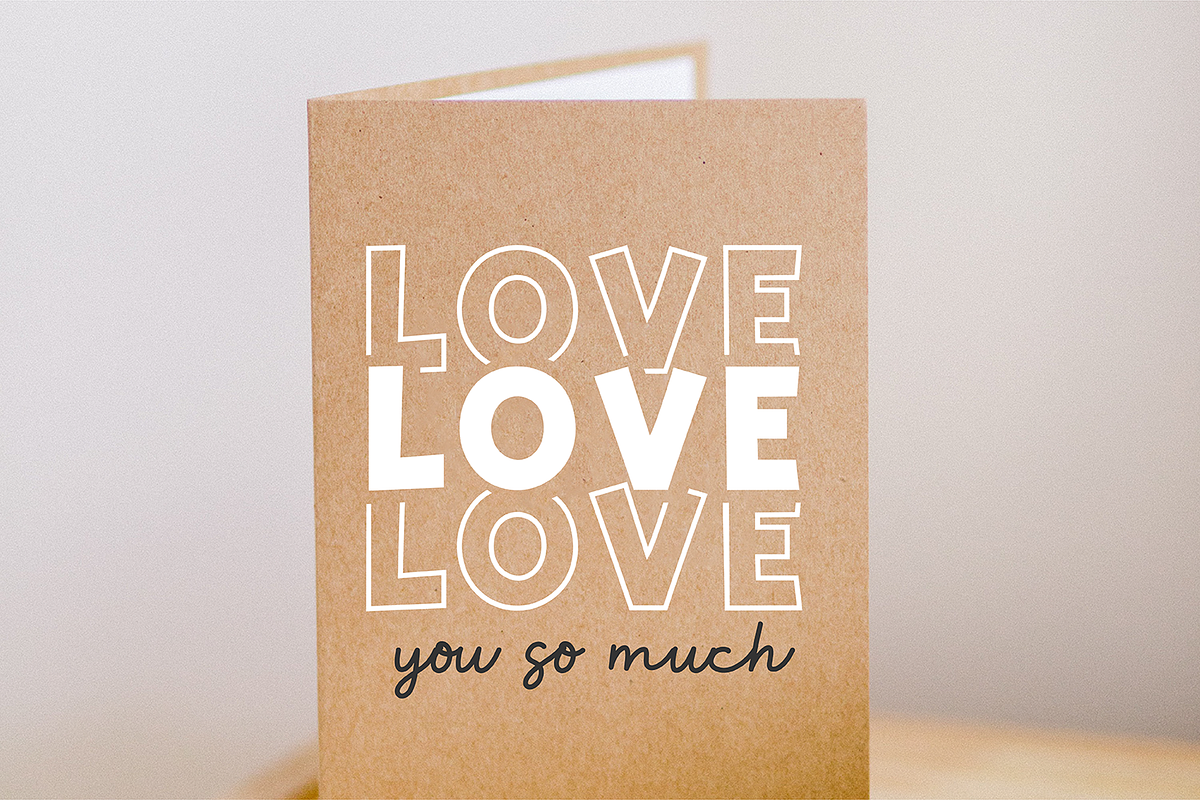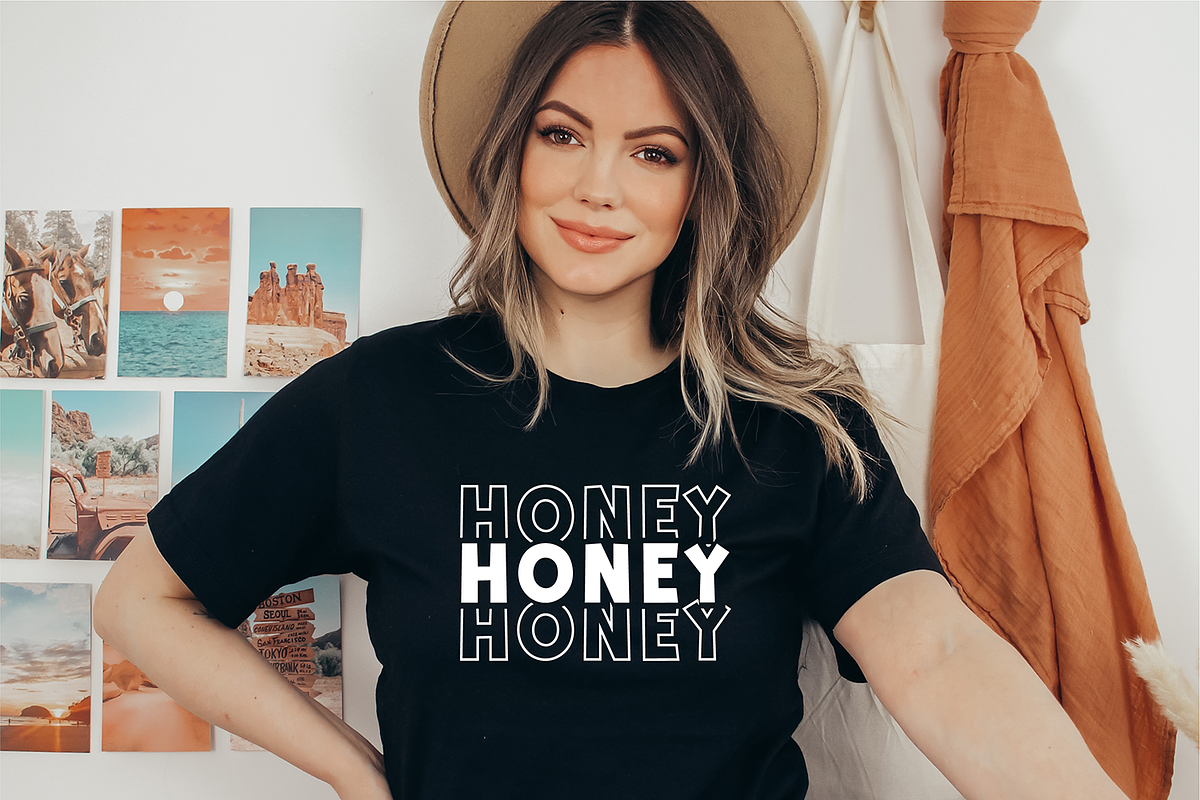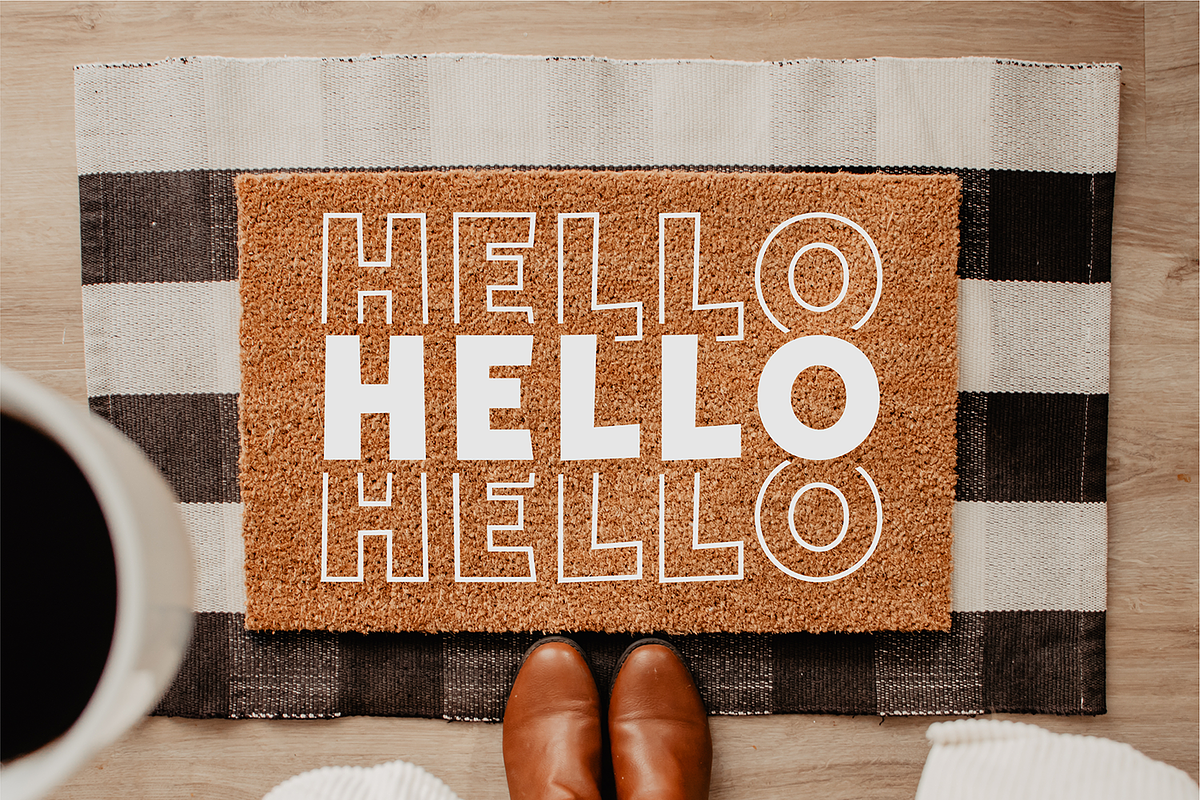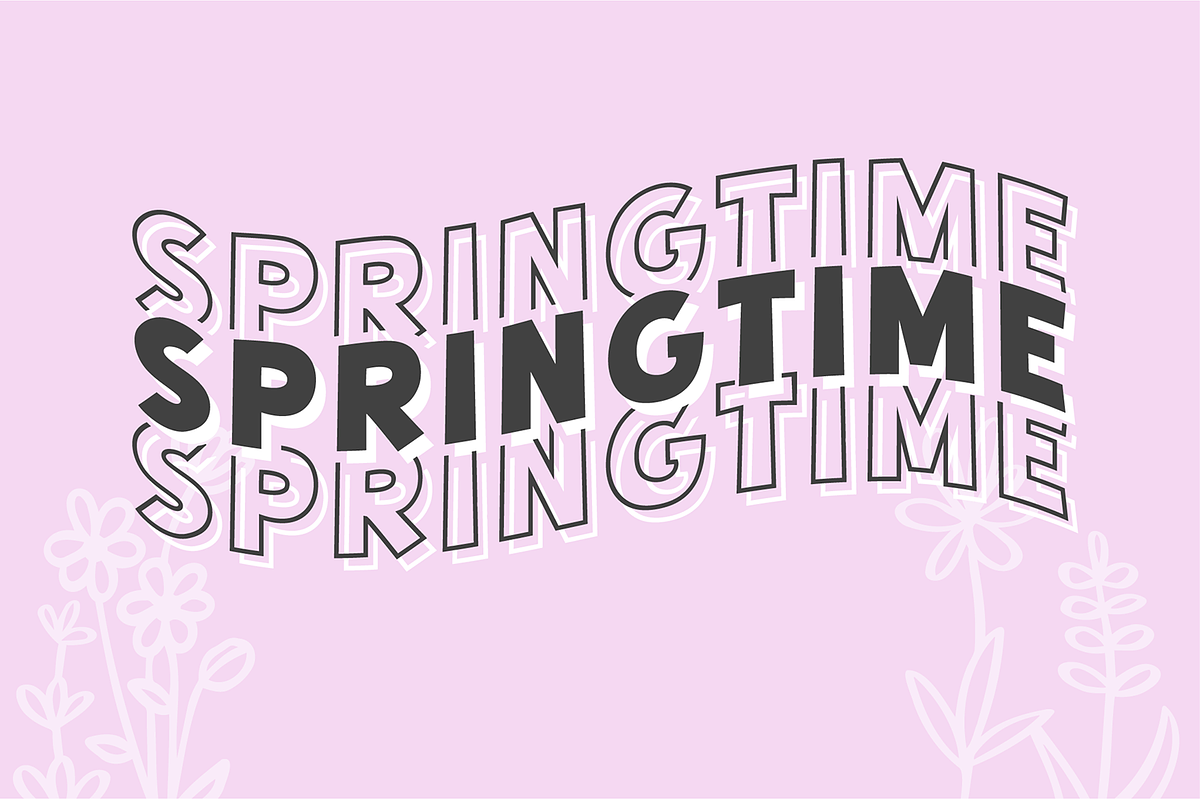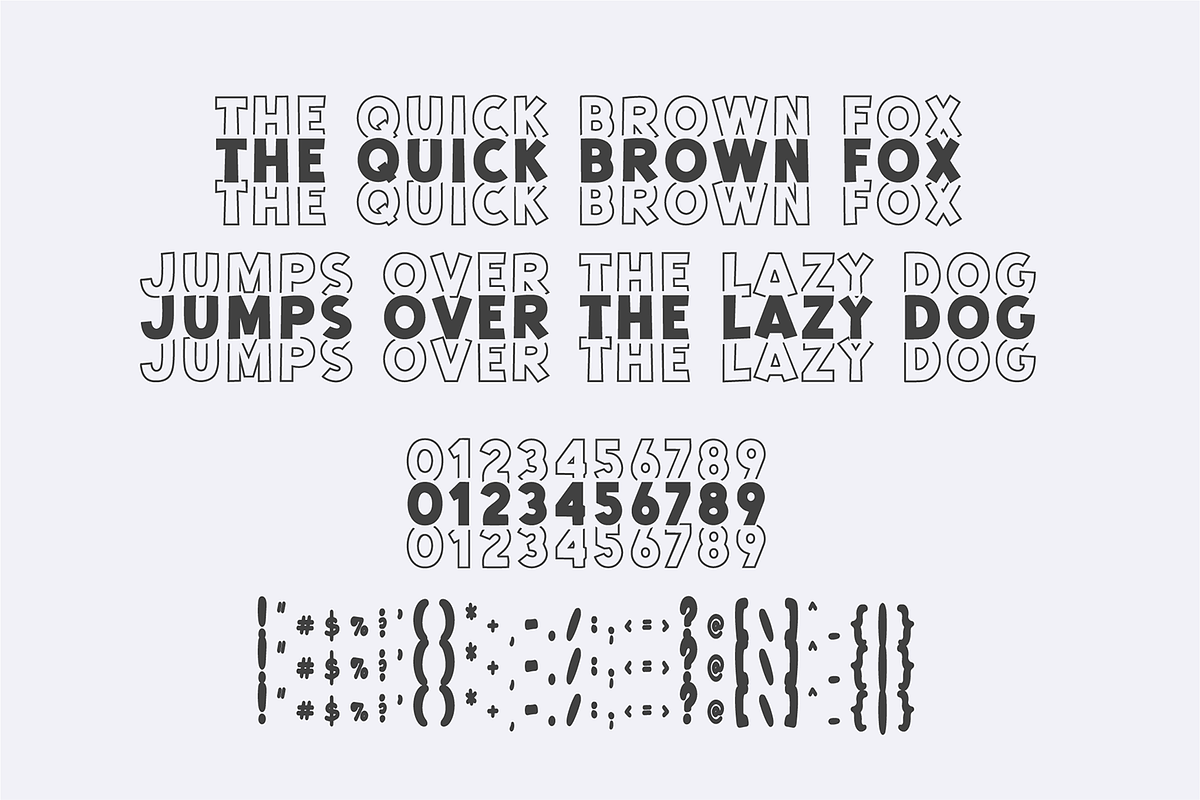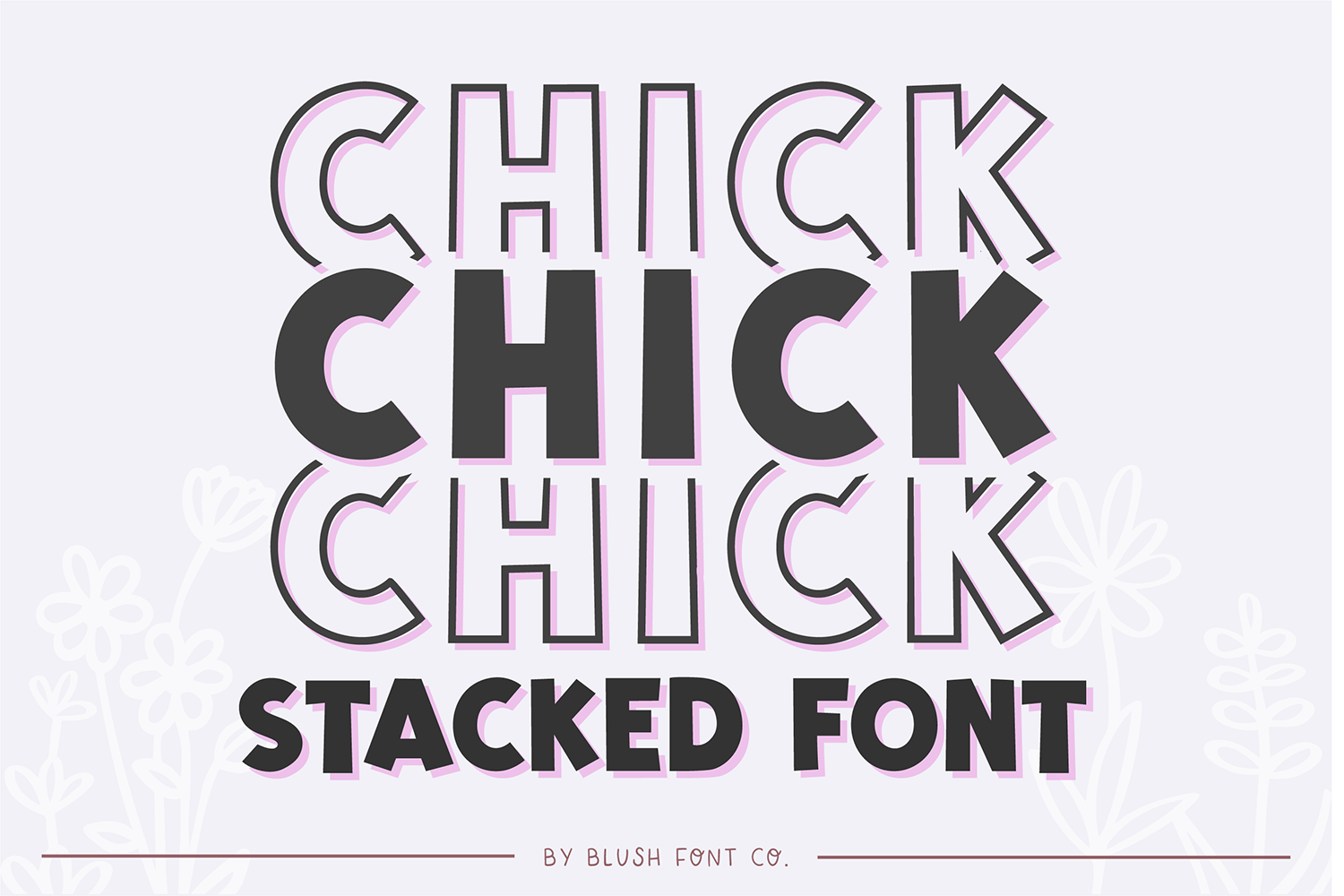
CHICK STACKED Trendy Block Font
"Chick Stacked" a trendy block display font with a stacked effect.
This font is a trendy display font that is perfect for social media or crafty projects. Use if for branding, crafts for decor, invitations, and more! This font includes numbers and punctuation marks.